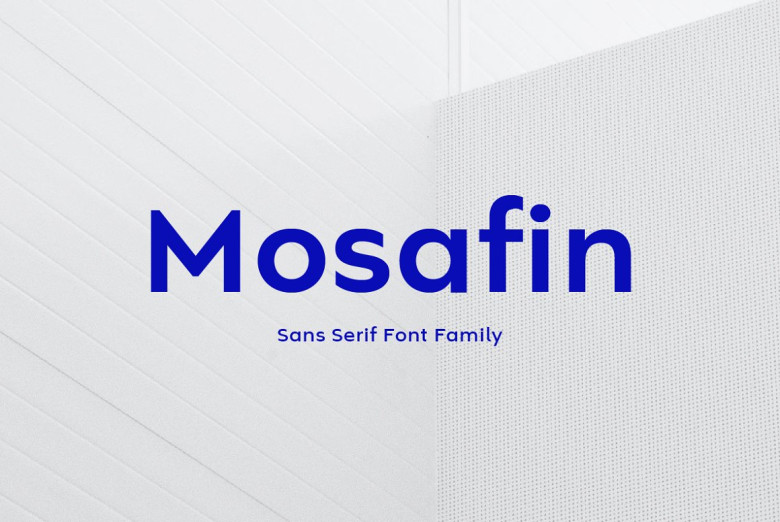
Mosafin Font
Mosafin font is a contemporary and elegant typeface. Using cutting-edge technology and stunning design, the Mosafin font features serif-free letters with clear and crisp lines for ease of reading, making it an excellent choice for use across various graphic design applications.
Utilizing geometric letters with sharp angles and thin, crisp lines it has unique geometric features which makes this font suitable for posters logos business cards banners and many other artwork.
Mosafin Sans Serif Font Family